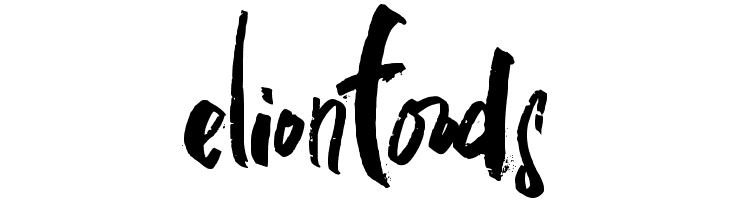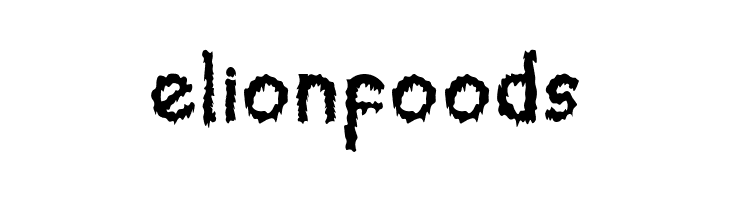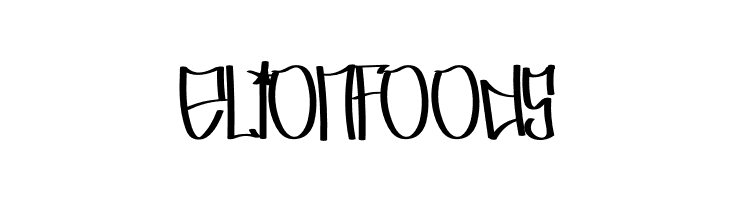
A bold, brush-stroke font with an energetic and rebellious style.
A bold, graffiti-inspired font with sharp, jagged edges and a dynamic, edgy style.
A rugged, shredded font with a hand-drawn, energetic style.
An eerie, jagged font with a twisted, vine-like appearance.
A bold, graffiti-inspired font with angular, dynamic characters.
A bold, brush-style font with dynamic, jagged strokes.
A playful, hand-drawn font with a casual, doodle-like style.
A bold, edgy font with sharp, jagged edges and a rebellious, grunge-like style.
A bold, edgy font with sharp, angular lines and dynamic energy.